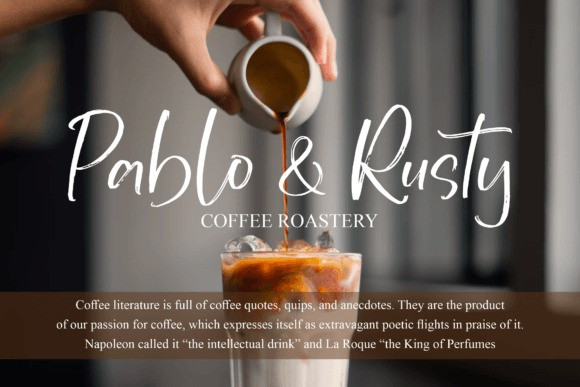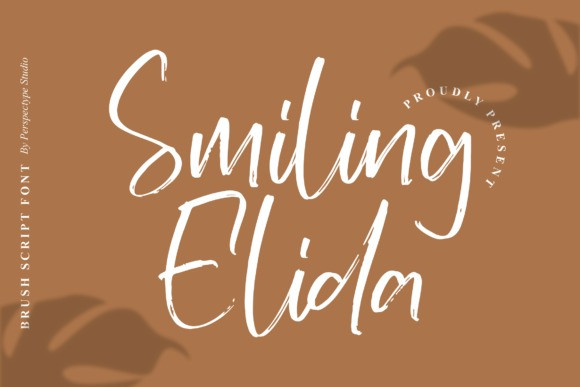
Smiling Elida Font
Smiling Elida Script Font feels equally charming and elegant. It looks stunning on wedding invitations, thank you cards, quotes, greeting cards, logos, business cards, and every other design which needs a handwritten touch.